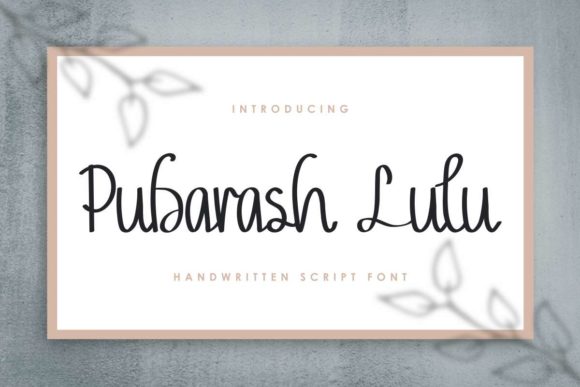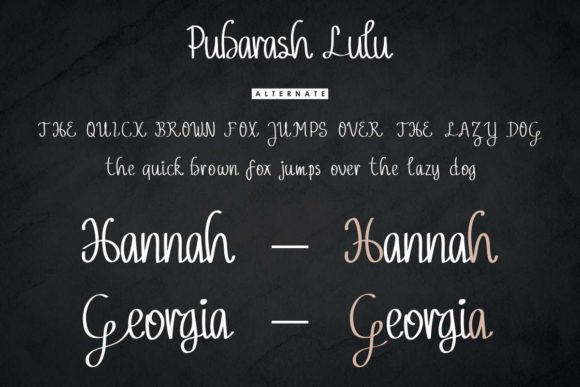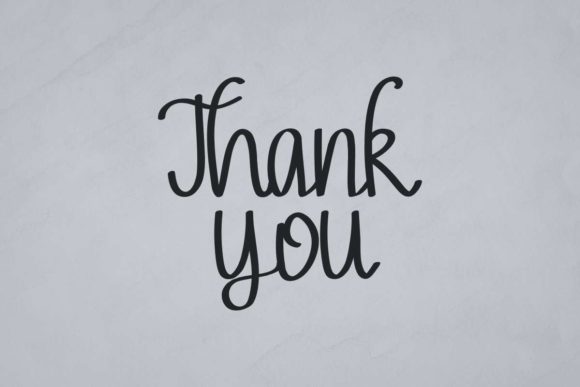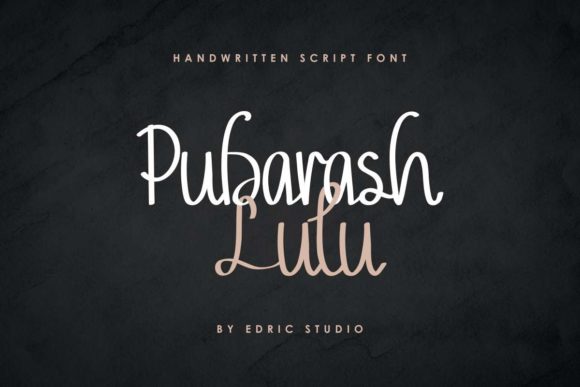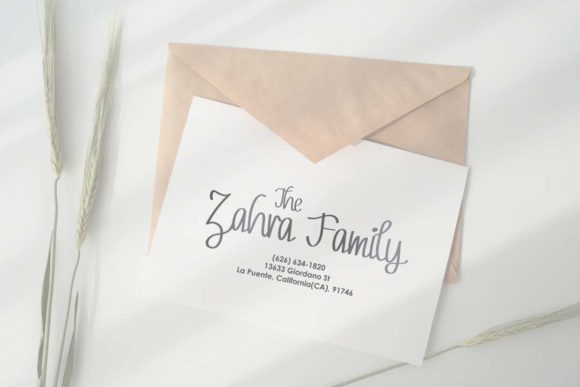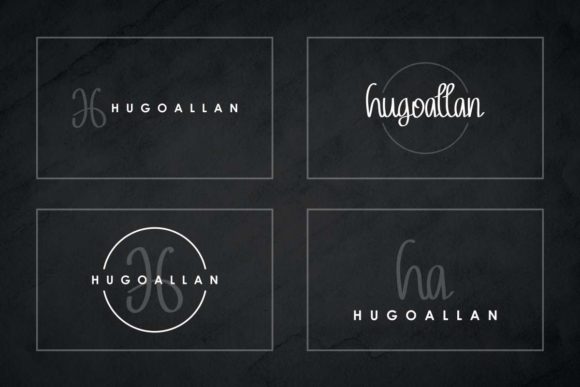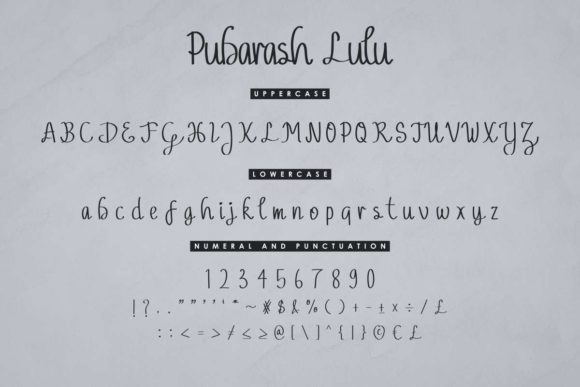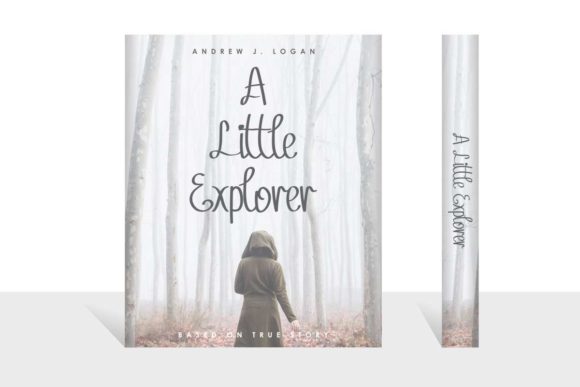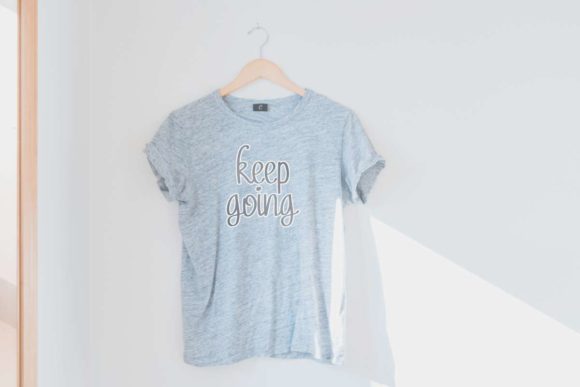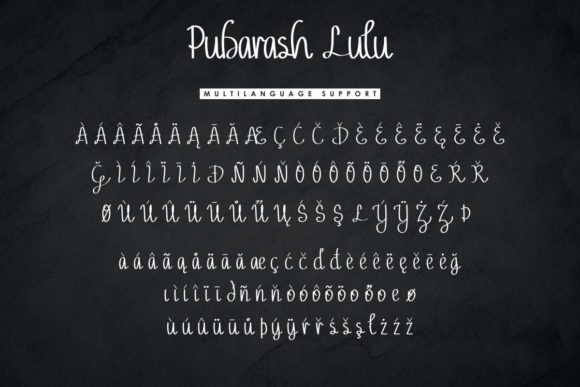
Pubarash Lulu Font
About Pubarash Lulu Font
Pubarash Lulu has a great handwriting style with a natural effect. Pubarash Lulu is the perfect font for making original and outstanding designs.